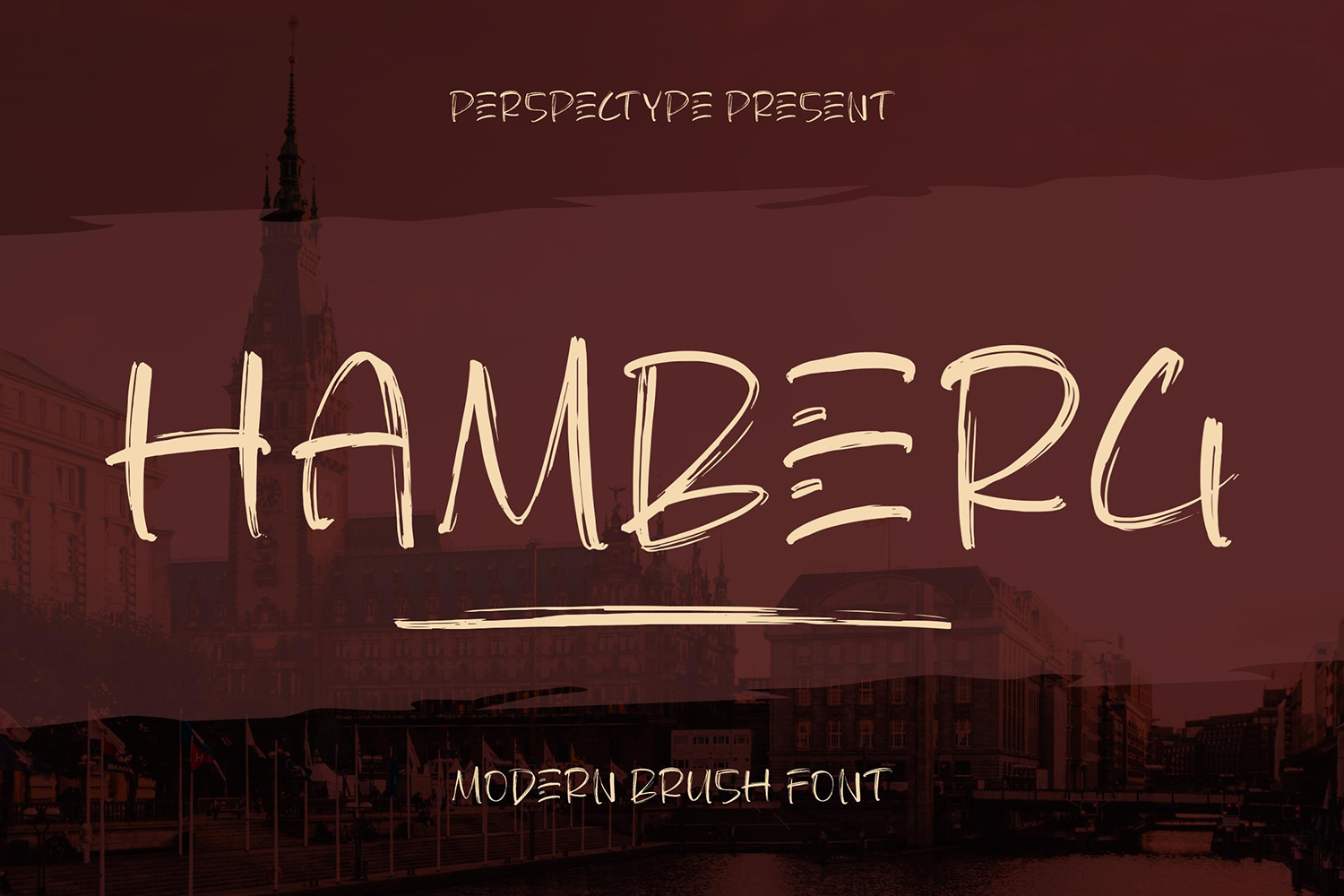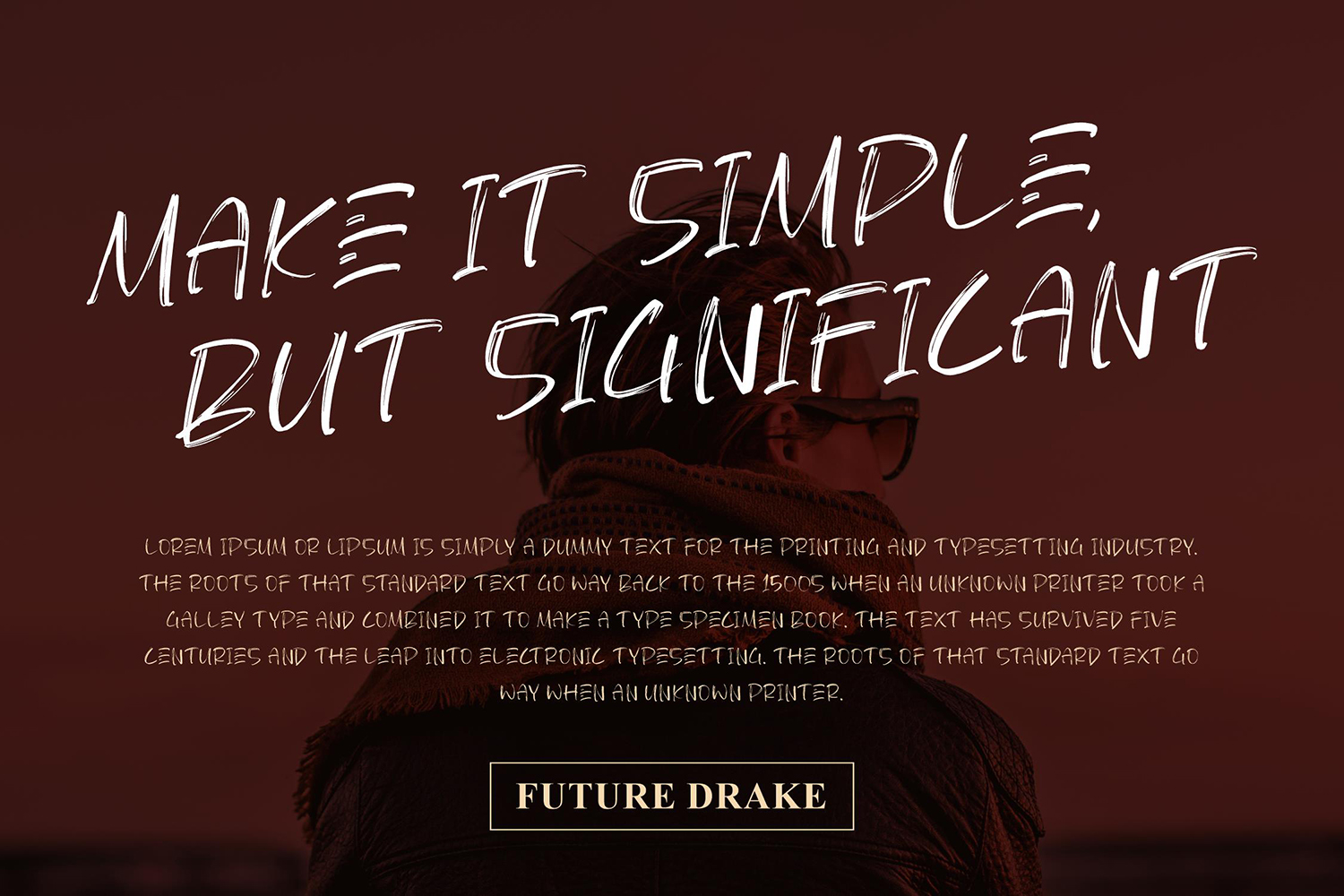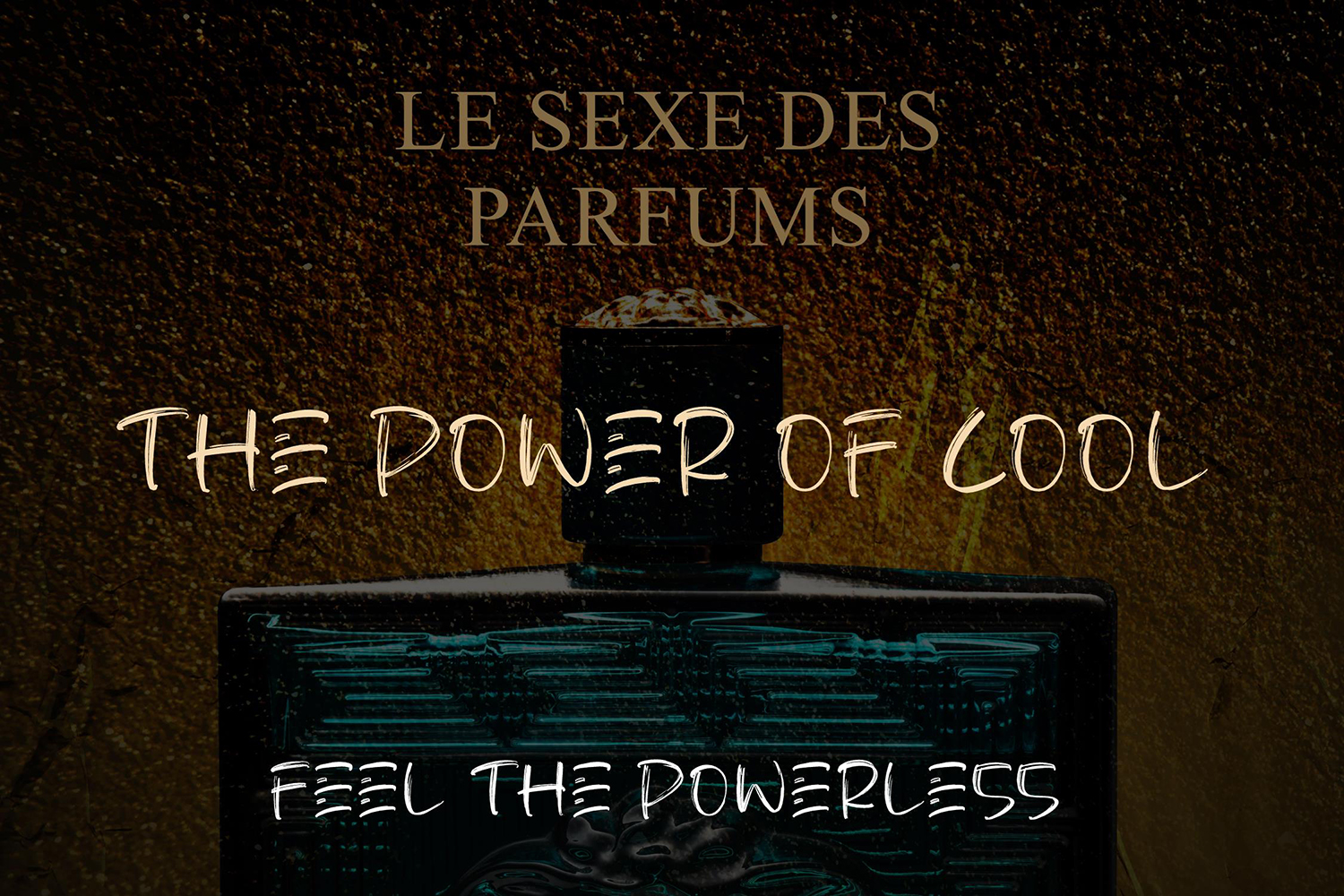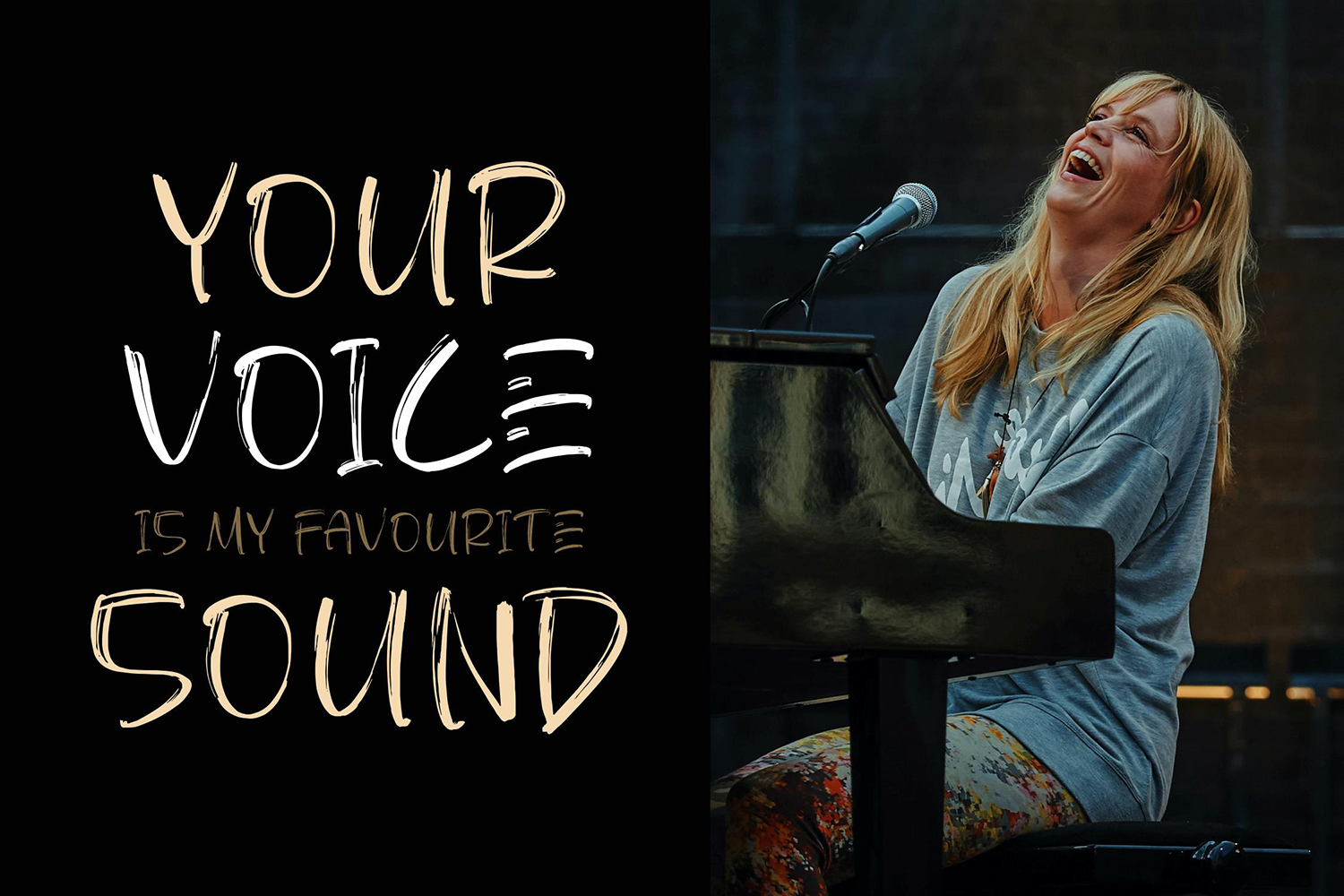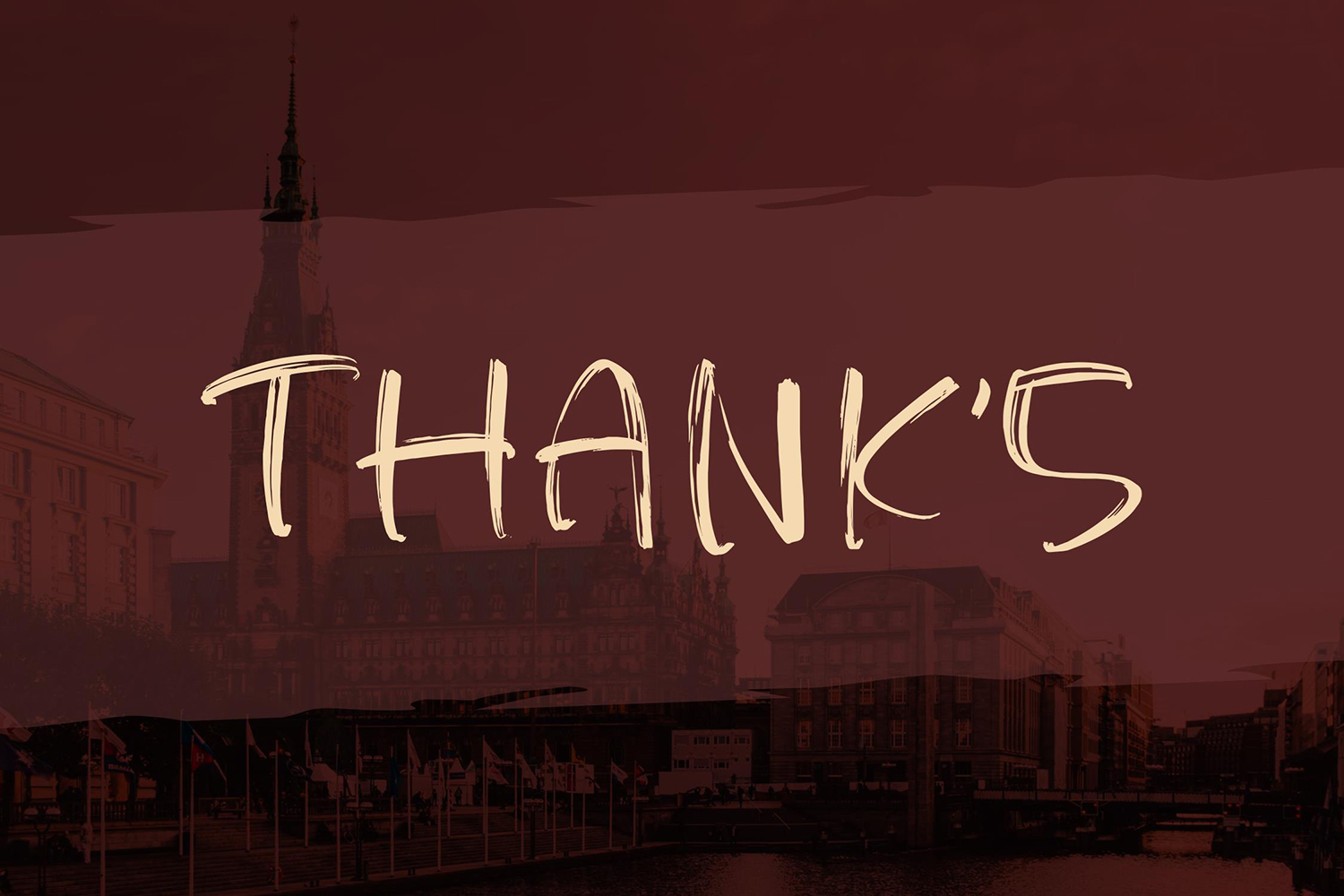
Hamberg Free Font
Hamberg Free Font is a modern and versatile brush font that combines the beauty of traditional calligraphy with a contemporary edge. With its fluid and dynamic strokes, this font is perfect for creating bold and eye-catching headlines, posters, and social media graphics. Whether you’re designing for fashion, food, or travel, Hamberg’s unique style will give your project a touch of elegance and sophistication. Its playful and dynamic nature makes it perfect for adding a personal touch to any design.